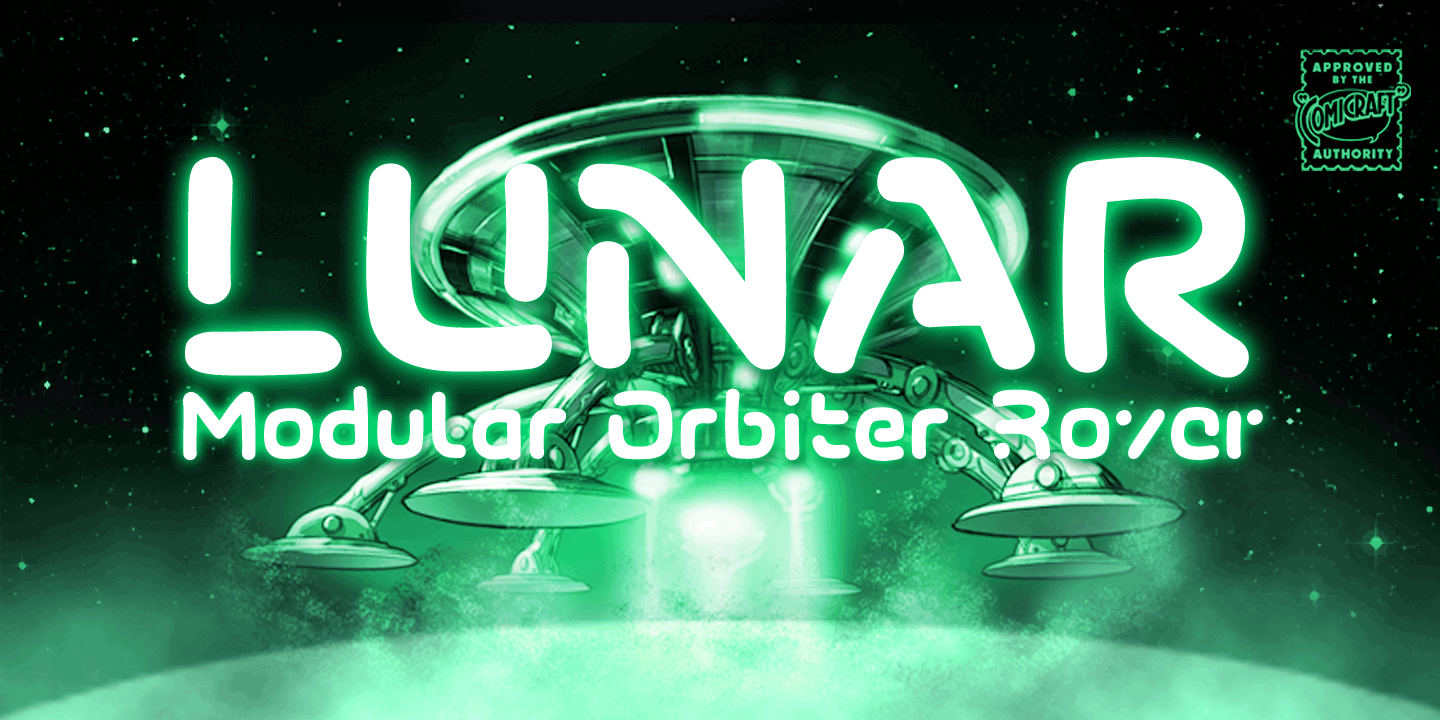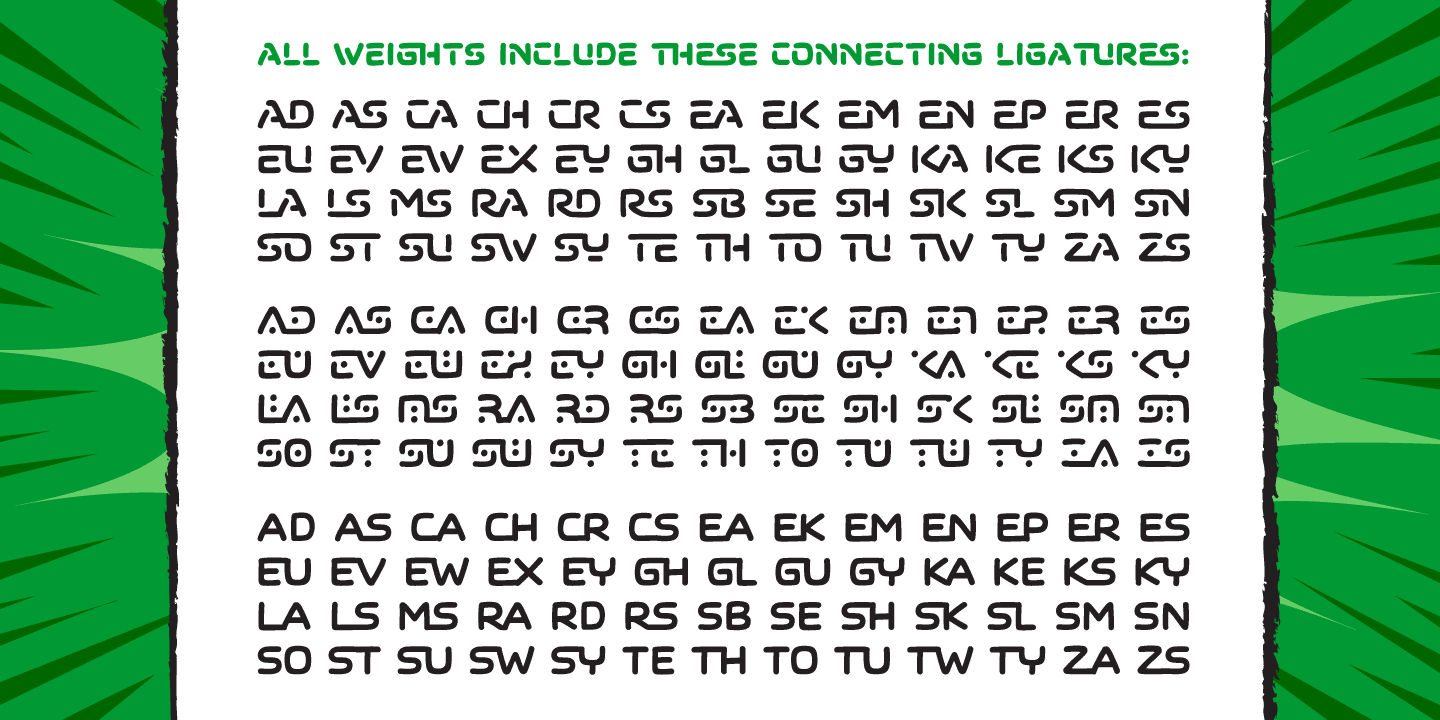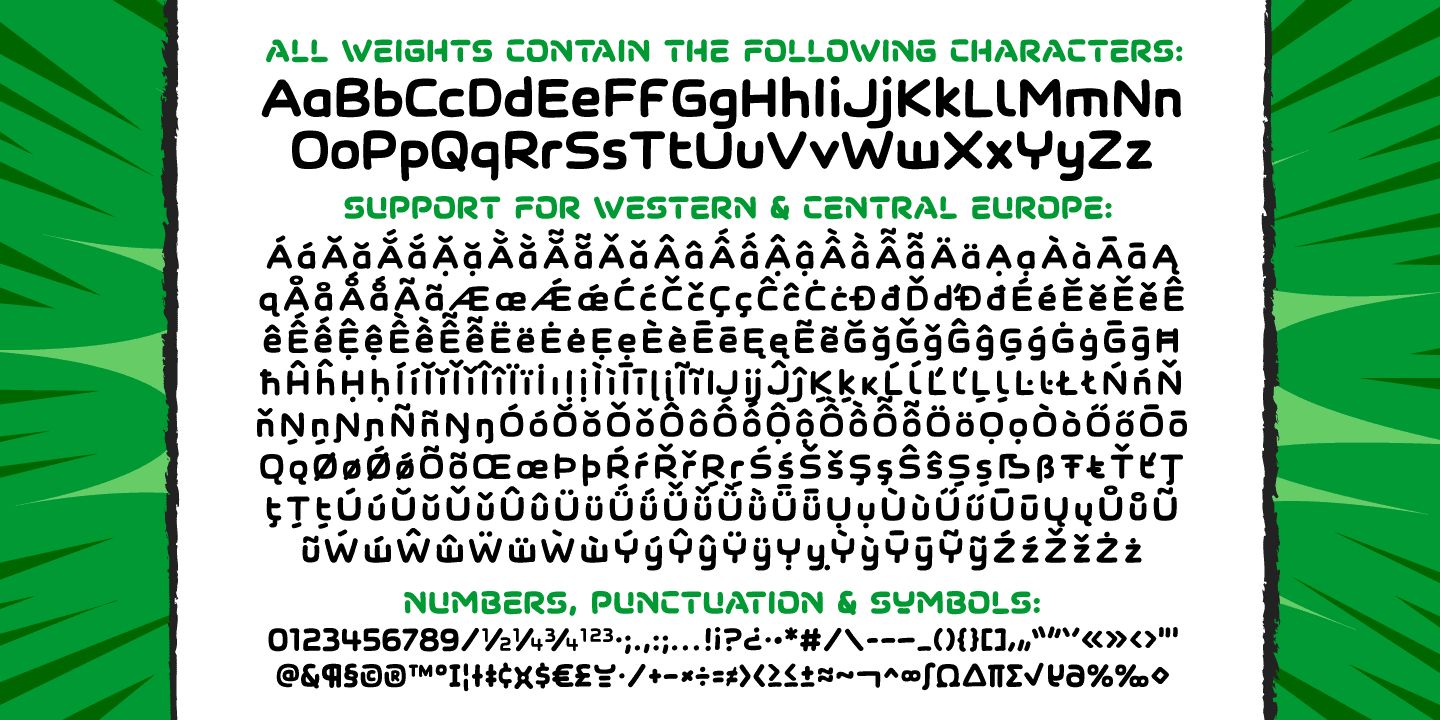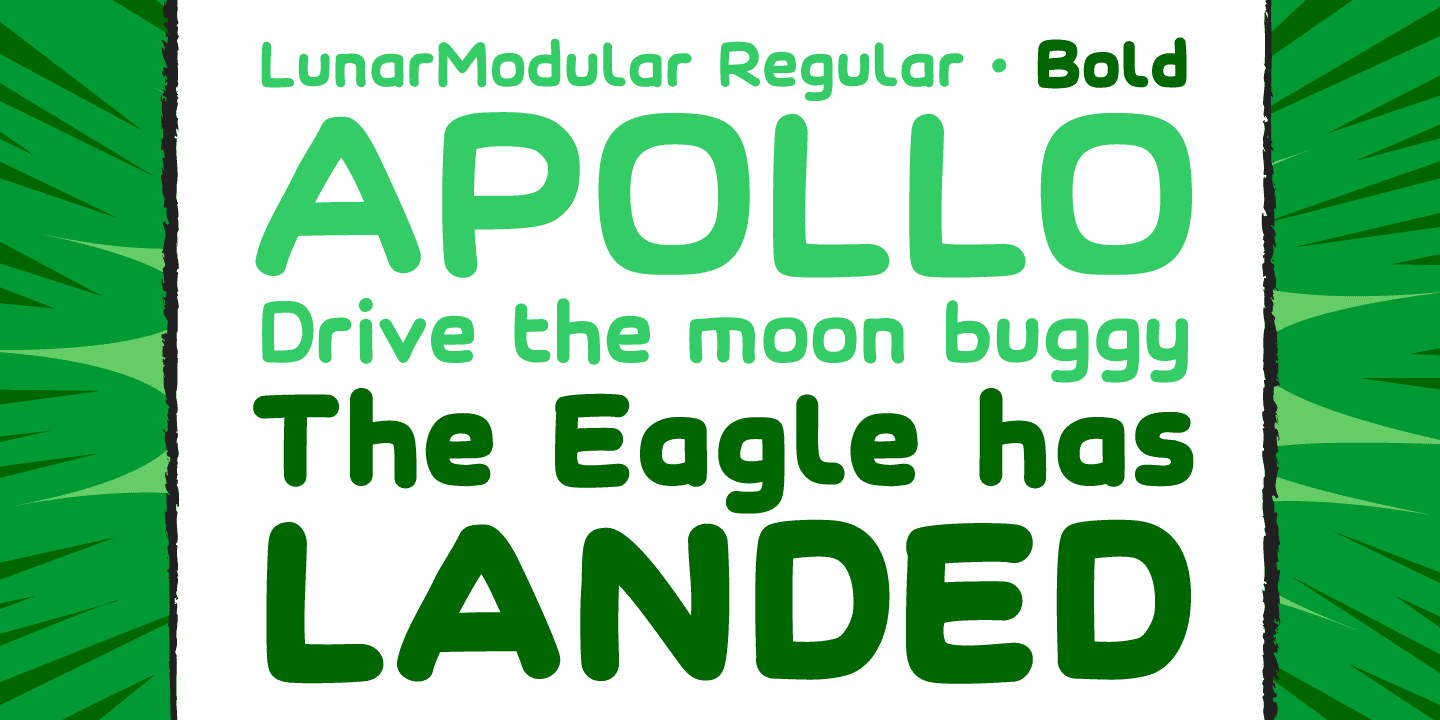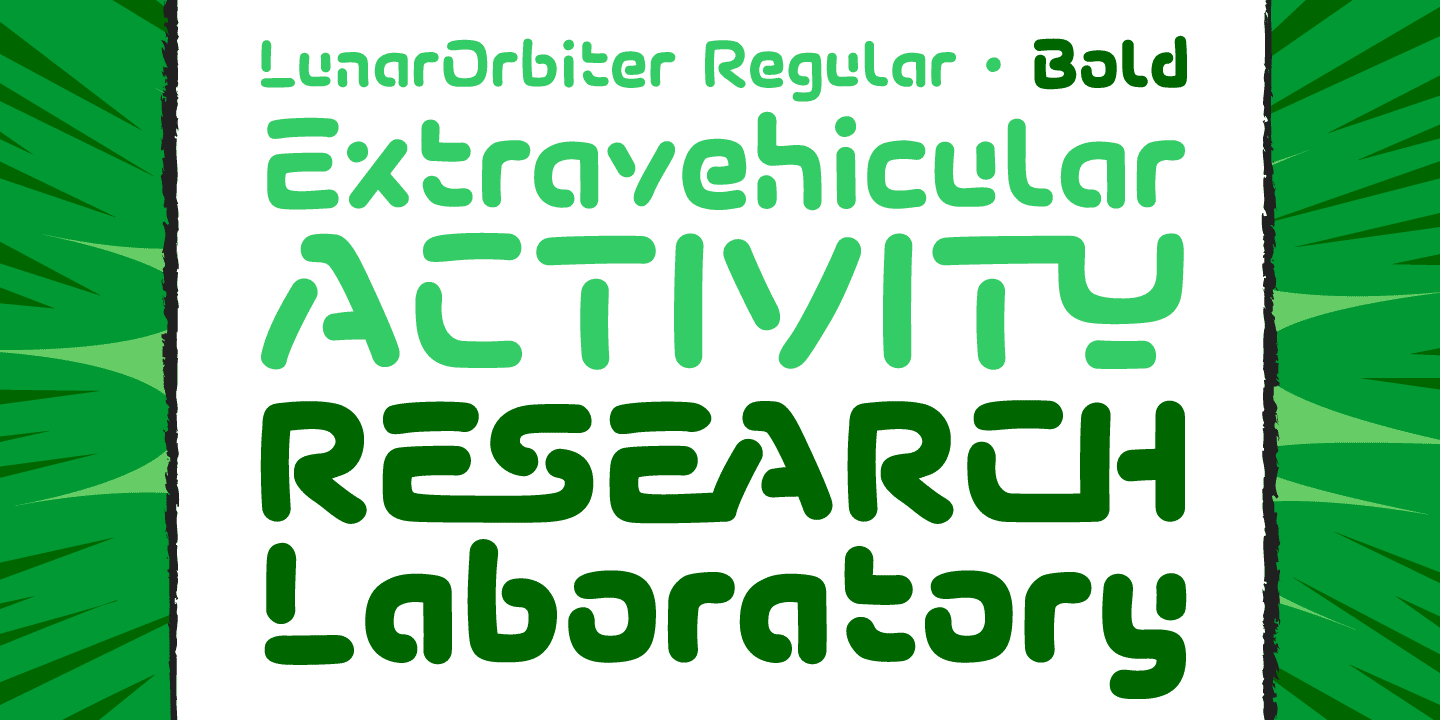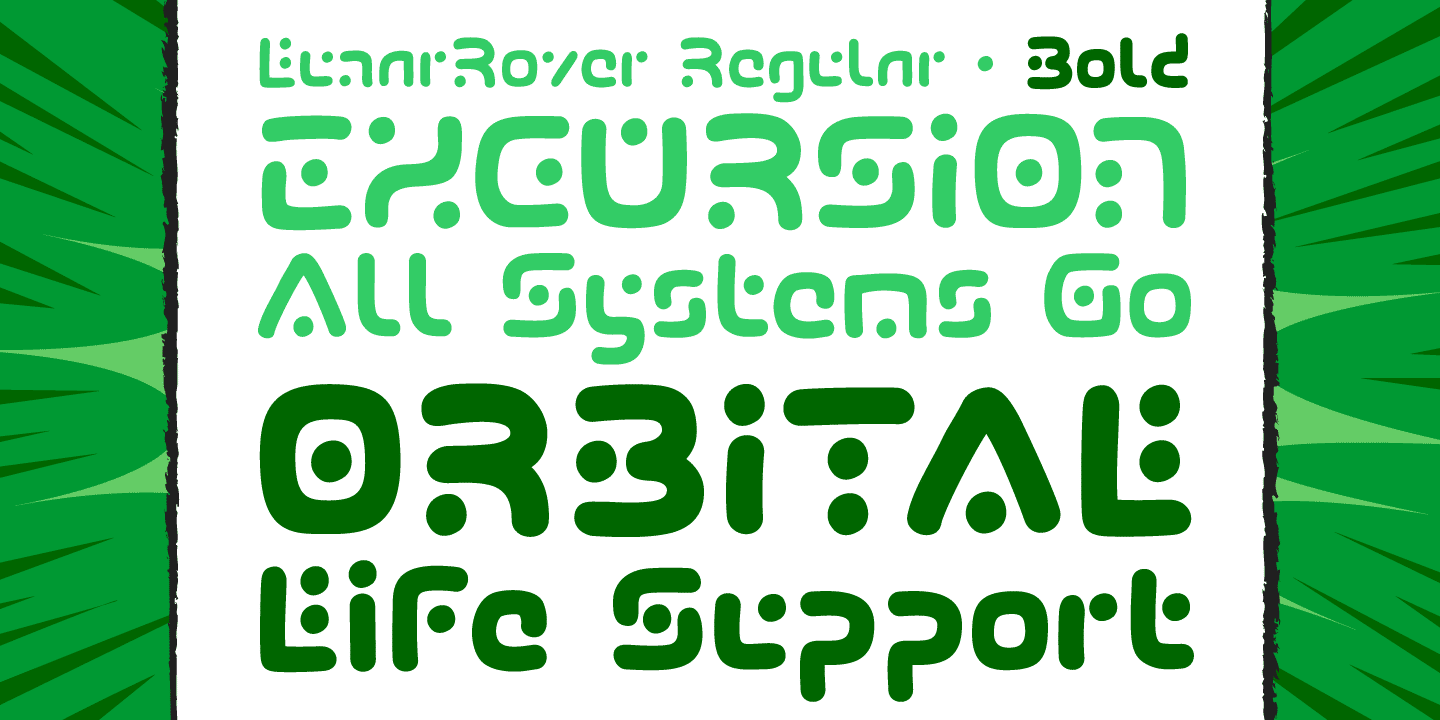
Lunar Modular
Font Family by Comicraft Fonts
TOUCHDOWN! This is not a Hoax, not a What If, not an Imaginary Font! The Eagle has Landed... Comicraft's latest manned mission: Space Age Faces for Space Age Spaces!
Our Apollo Modules have settled in the moondust and our Astro Naughts are buckled up in the Rover collecting little rocks and looking for suitable spots to play golf. We invested billions and billions of dollars to send these fonts into space using the largest and most powerful rockets ever built, and rest assured, our Orbiter is coated with a phenolic epoxy resin ablative heatshield to protect you for your journey back to Earth.